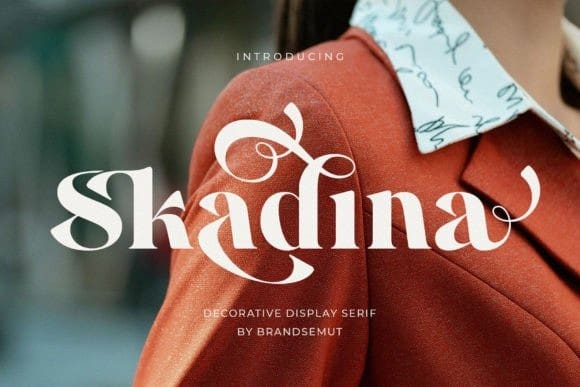
Skadina Font
Skadina Font is an elegant, classy and modern serif font, best used as a display for headings, logos, branding, magazines, product packaging and invitations.